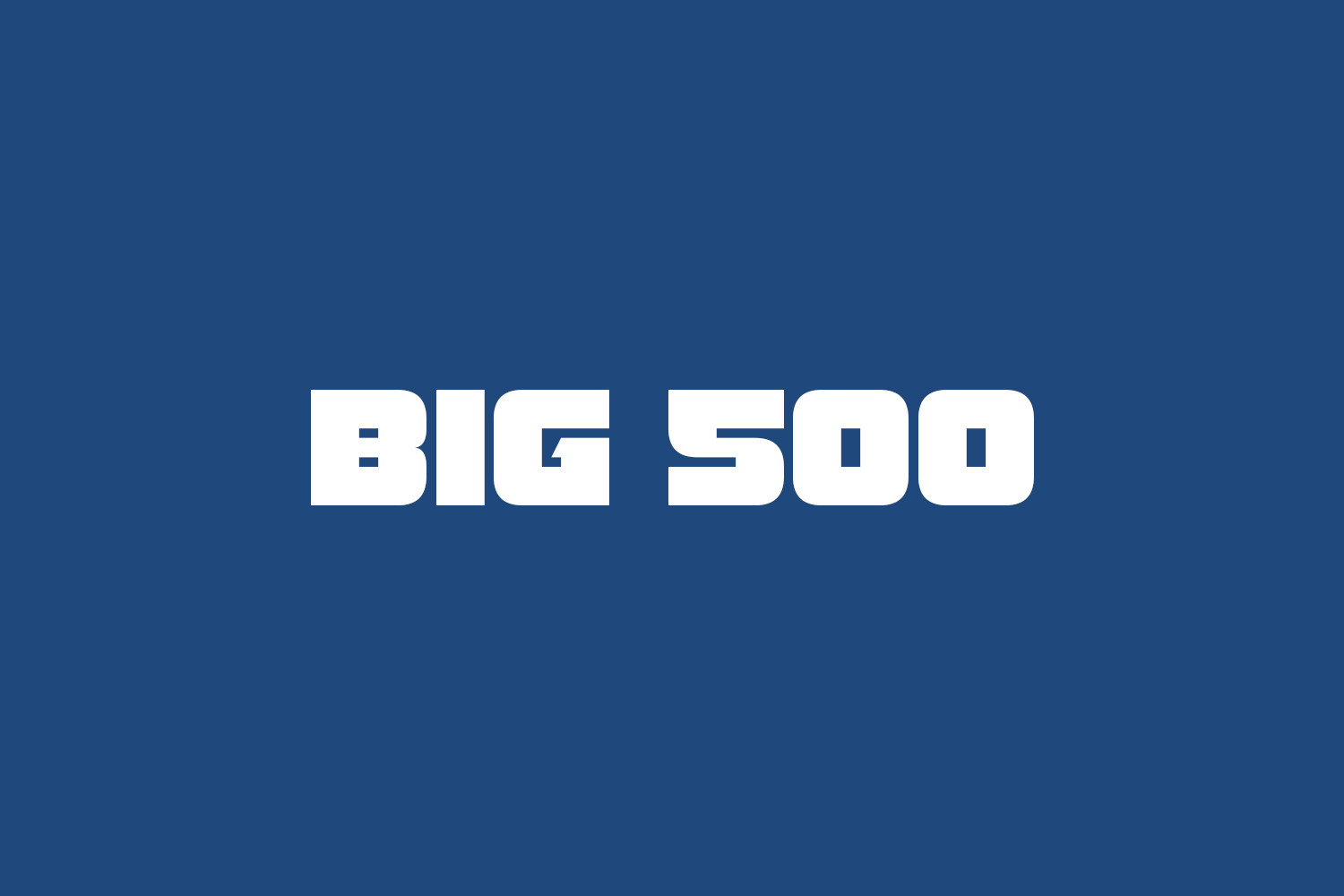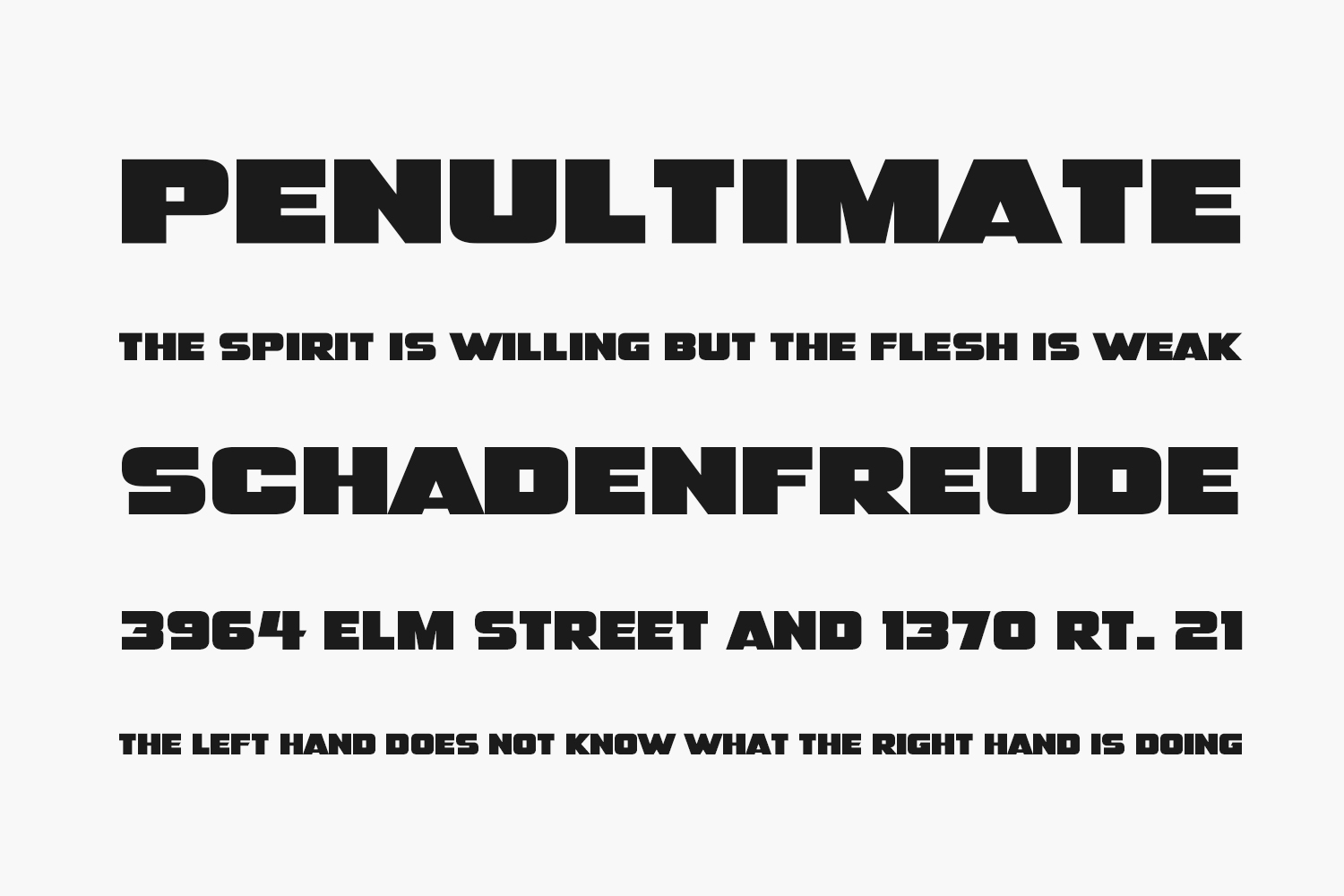
Big 500 Free Font Family is an ultra-bold, high-impact font in a slick modern style. Perfect for titles, events, and adding visual flair to your projects. Big 500 Free Font Family was designed by Darrell Flood and is free for personal use only. Please purchase the full version for commercial use.